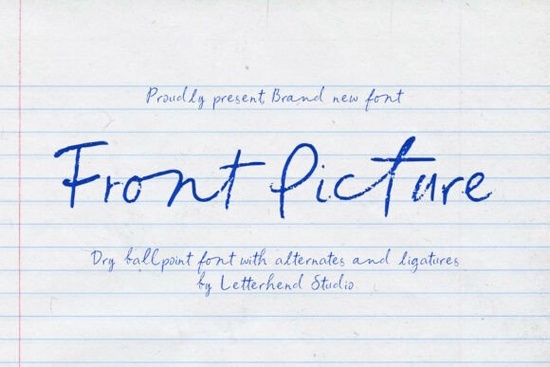
Front Picture Font looks like something you'd find scrawled in the corner of a notebook quick, honest, and unmistakably human. It mimics the feel of a dry ballpoint pen, with uneven pressure and slightly rough strokes that give your text a real, handwritten quality. If you need a script font that doesn't look overly polished or obviously digital, this handwritten font with a casual notebook feel is worth a closer look.
What Makes Front Picture Font Feel So Realistic?
Most handwritten fonts try to look natural but end up looking a little too smooth. Front Picture Font avoids that trap. The slightly rough strokes and varying line weight create the kind of texture you'd expect from an actual ballpoint pen running across paper. There's no perfect consistency and that's the whole point.
This font captures the authentic rhythm of quick, casual handwriting. Letters don't sit perfectly on a baseline. Some are slightly tilted. The spacing isn't mechanical. Together, these small details make text set in Front Picture Font feel like a real thought someone jotted down, not a font pretending to be one.
Who Is This Font Best Suited For?
Front Picture Font works well for anyone who needs handwriting that feels genuine rather than decorative. Here are a few examples:
- Print-on-demand sellers who want quotes, phrases, or slogans on mugs, shirts, and tote bags that look truly hand-lettered
- Wedding and event stationery designers looking for an informal, personal tone on invitations, menus, or place cards
- Small business owners creating thank-you cards, packaging inserts, or brand materials that feel warm and approachable
- Social media creators designing Instagram posts, stories, or Pinterest graphics with a personal, journal-like aesthetic
- Journaling and planner enthusiasts who want digital stickers or printables with a realistic pen look
If your project calls for something more relaxed and informal than a traditional stylish script font, Front Picture Font fills that gap nicely.
How Does It Compare to Other Handwritten Fonts?
Creative Fabrica has a large collection of handwritten and script fonts, each with its own personality. Front Picture Font sits firmly in the "casual notebook" category it's not trying to be elegant or fancy.
For comparison:
- Lazydog leans into a more playful, bouncy style with thicker strokes great for kids' products or lighthearted branding.
- Happy Rainbow Family brings a cheerful, rounded look that works well for family-themed projects and nursery decor.
- Wonder Day has a flowing, more connected script style suited for elegant quotes and greeting cards.
Front Picture Font stands out because of its deliberate imperfection. It doesn't try to look beautiful it tries to look real. That's what makes it useful in different contexts than a polished calligraphy font or a smooth flowing script.
What Projects Does This Font Work Well For?
Because of its dry pen texture and relaxed spacing, Front Picture Font is particularly effective for:
- Quotes and affirmations on wall art, posters, or digital downloads where a personal touch matters
- Notebook-style designs for journals, planners, and educational materials
- Rustic or vintage product packaging where an overly polished typeface would feel out of place
- Blog headers and website accents that need a human element without looking messy
- T-shirt typography with a hand-drawn, everyday writing style
It pairs well with clean sans-serif fonts for body text. Use Front Picture for headlines or short phrases where you want the handwriting to be the focal point.